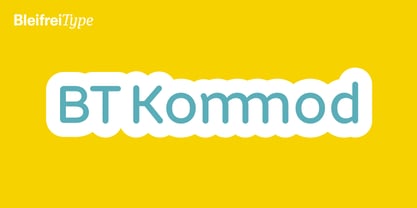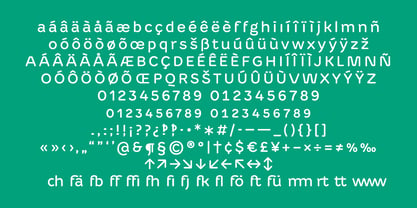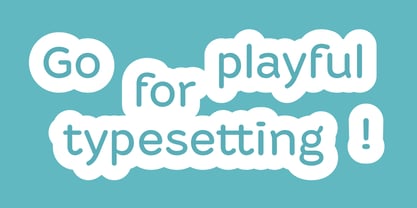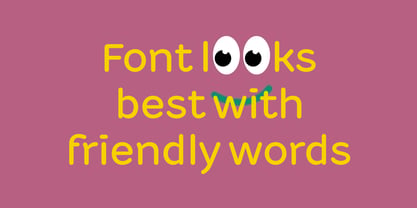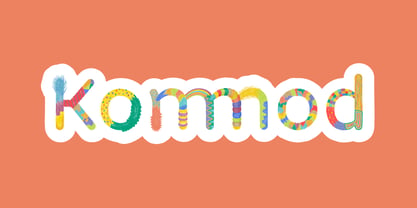
BT Kommod
by Bleifrei Type
The BT Kommod Font Family was designed by Aaron Aebi and published by Bleifrei Type. BT Kommod contains 1 styles. More about this family
A smooth sans serif with opened and roundish forms. Wide in spacing, strong in blackness. Remarkably large x-height. Filled with playful yet discreet features. Numerous unusual ligatures. That's BT Kommod, a font that is ideal for sensitive minds, warm designs and friendly texts. The typeface derives from a script carefully crafted with a pointed pen. It is based on a facsimile of a handwritten type specimen from 1919, resulting in a font that is delightful to read and still carries an highly individual character.
Designers: Aaron Aebi
Foundry: Bleifrei Type
Bleifrei Type is an independent type foundry based in Bern, Switzerland – founded by Aaron, Florian, Matthieu and Rahel. Playful and a little naive, they explore unconventional paths in type design and aren't afraid to challenge typographic traditions. What starts as a sketch or idea often grows into a bold typeface, shaped through feedback, curiosity and lots of analogue experiments.